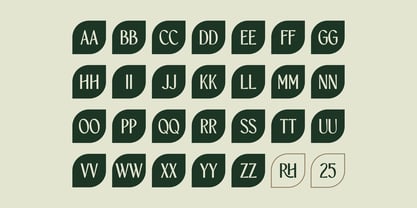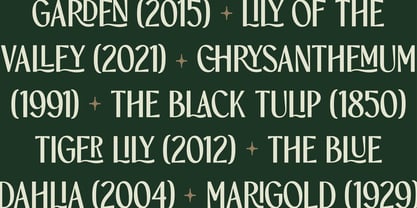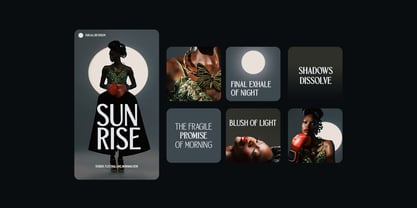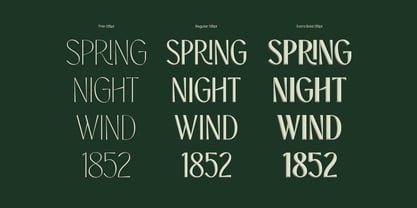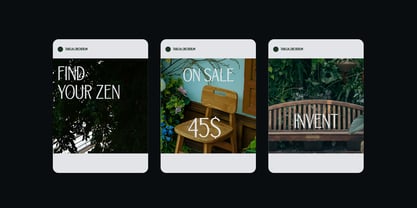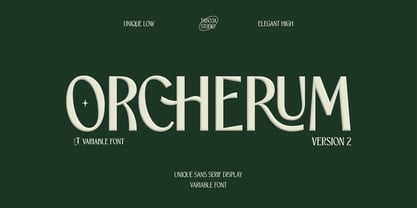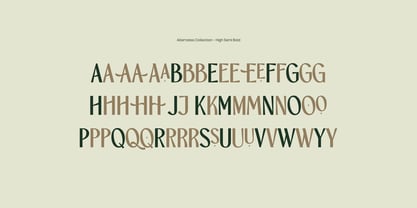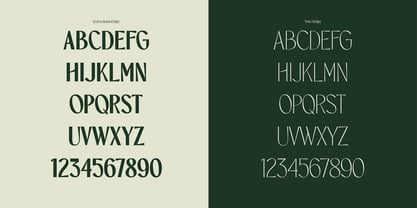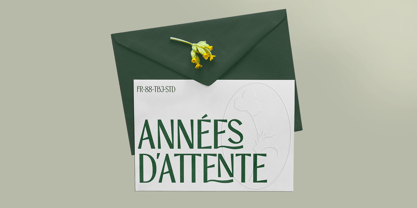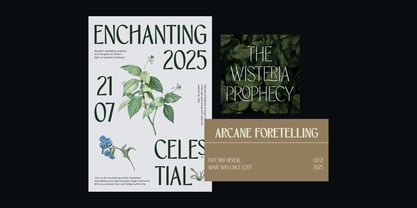
TBJ Orcherum II
The TBJ Orcherum II Font Family was designed by Yusilo Oktaprima Ardani and published by Taboja Studio. TBJ Orcherum II contains 16 styles and family package options. More about this family
We reimagined TBJ Orcherum with one question in mind: “What if we enhanced the contrast and weight to make it not just functional but truly unforgettable?” The result is TBJ Orcherum Version 2, a refined serif typeface that blends timeless elegance with bold modernity.
If you admired the original TBJ Orcherum for its sophisticated charm, the V2 update takes it to new heights. By introducing Low and High Contrast styles, we’ve made the font even more versatile. These updates ensure TBJ Orcherum excels as a display font, adding a dramatic flair to posters, editorial layouts, and branding.
The high-contrast version highlights the font’s unique character, delivering a striking presence that stands out in logotypes, magazine headlines, and luxury branding. Meanwhile, the low-contrast version retains subtlety and clarity, making it ideal for body text and extended reading. This duality creates a seamless balance, giving designers the tools to adapt TBJ Orcherum to both functional and expressive applications.